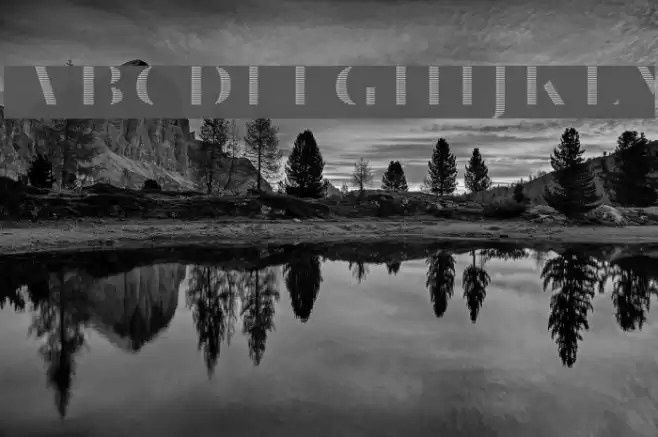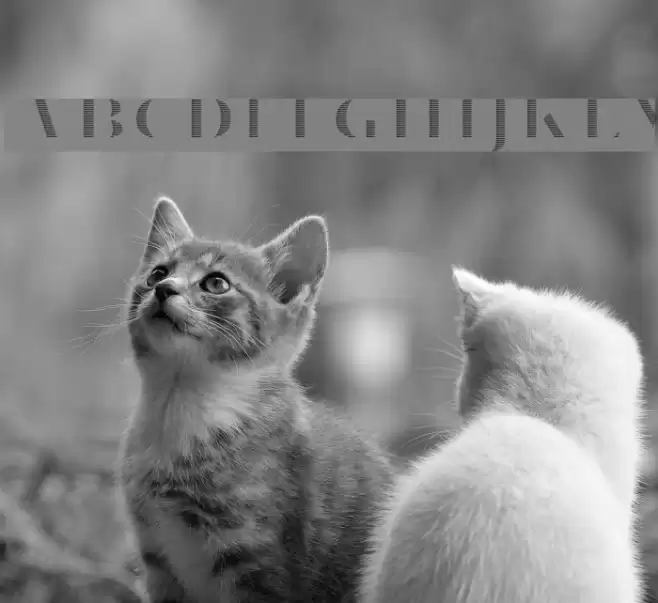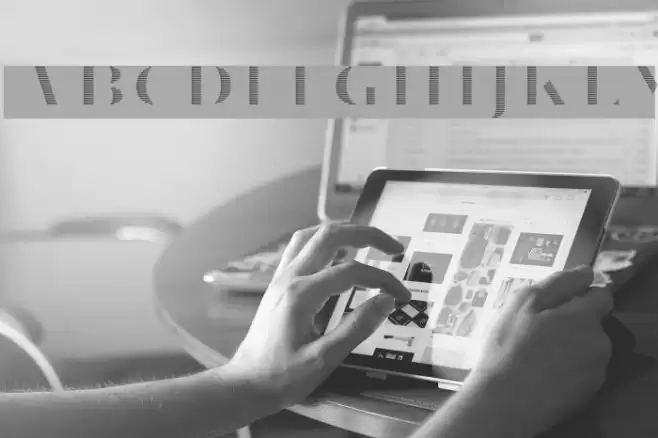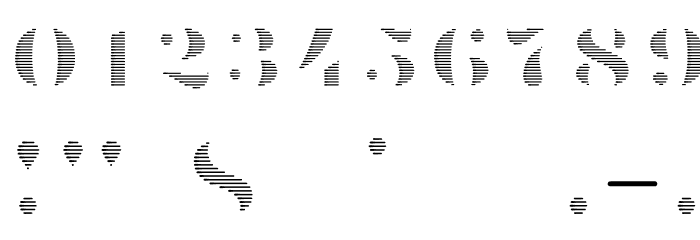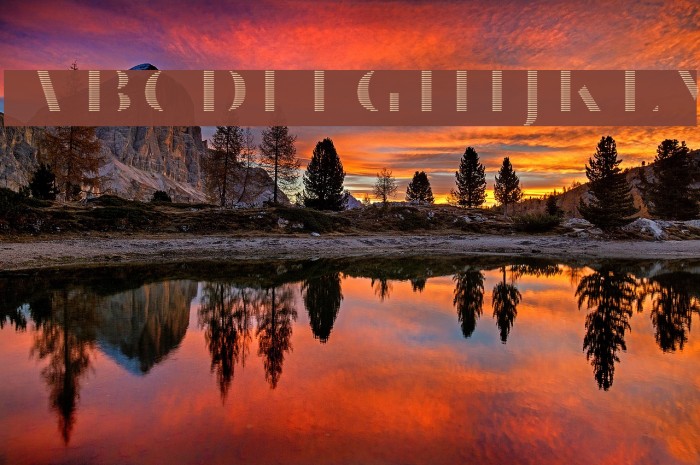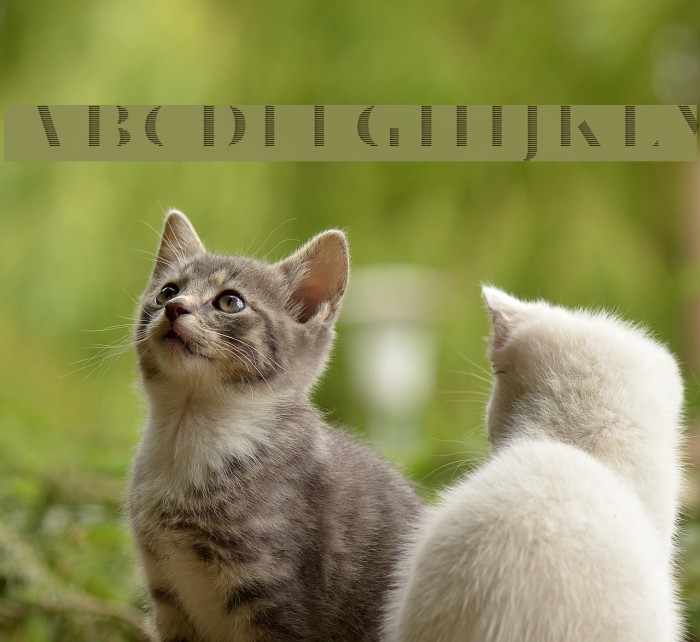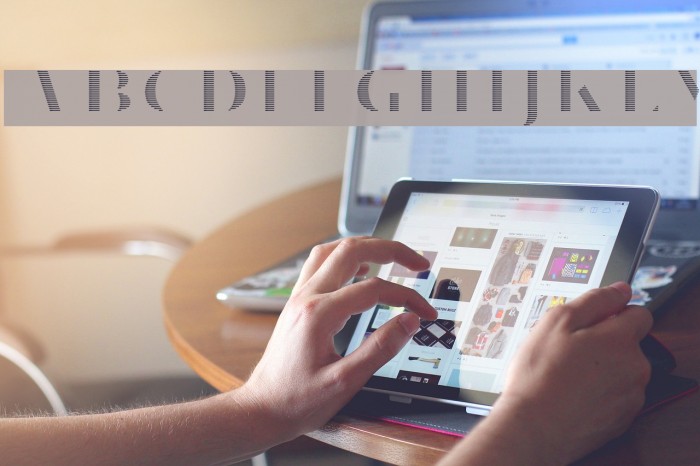
VillaDidot-Carved Font
VillaDidot-Carved Description
This font features a unique carved appearance with horizontal lines creating a textured effect within each character. The design is elegant and sophisticated, reminiscent of classic serif styles but with a modern twist. The uppercase letters are bold and commanding, while the lowercase letters maintain a consistent style. Numbers and special characters are crafted with the same attention to detail, ensuring a cohesive look across all glyphs. The font's distinct style makes it suitable for projects that require a touch of elegance and creativity.
A carved, textured serif font with a modern twist from Uncategorized fonts.
- Proposed Projects: Ideal for luxury branding, editorial design, and artistic posters.